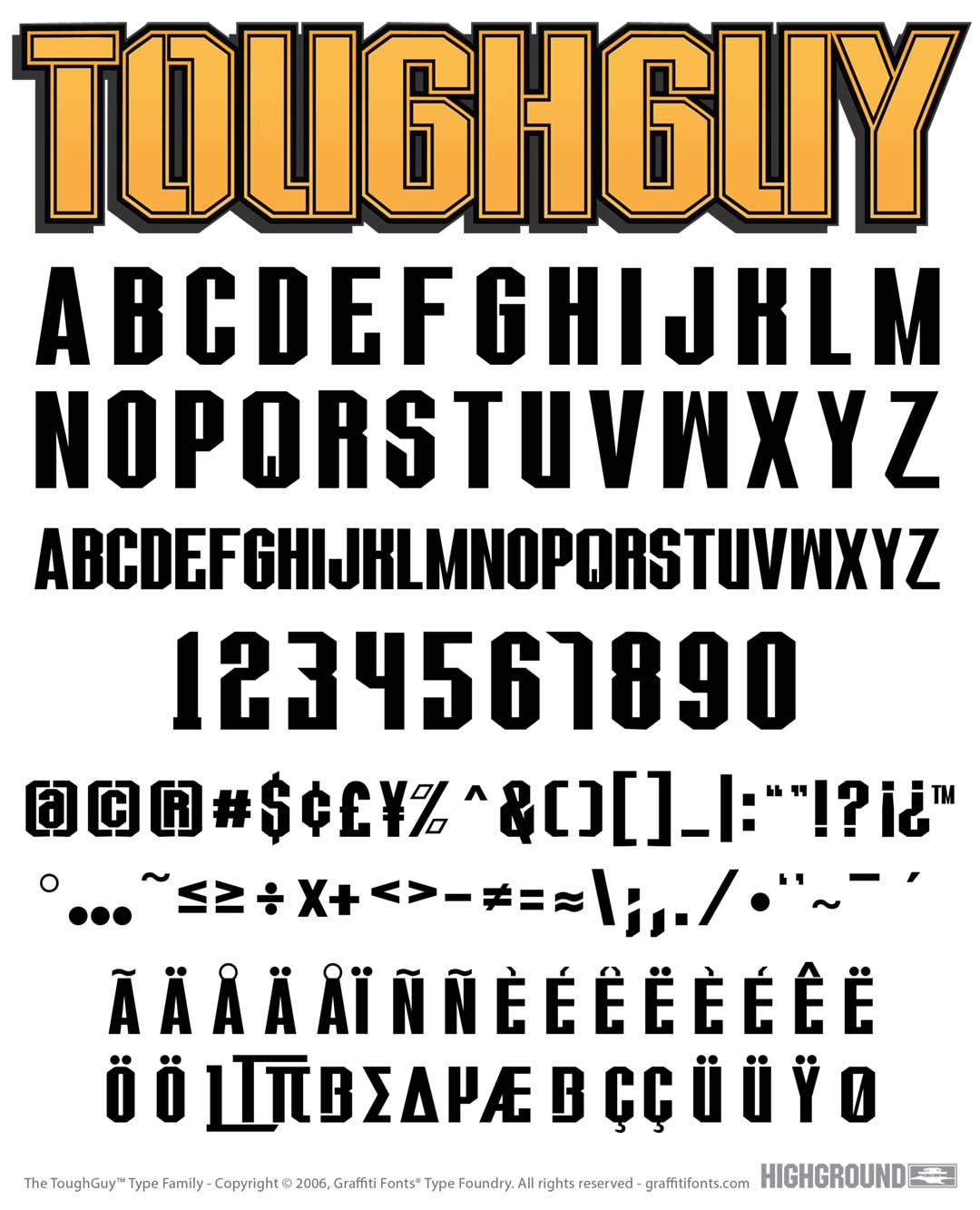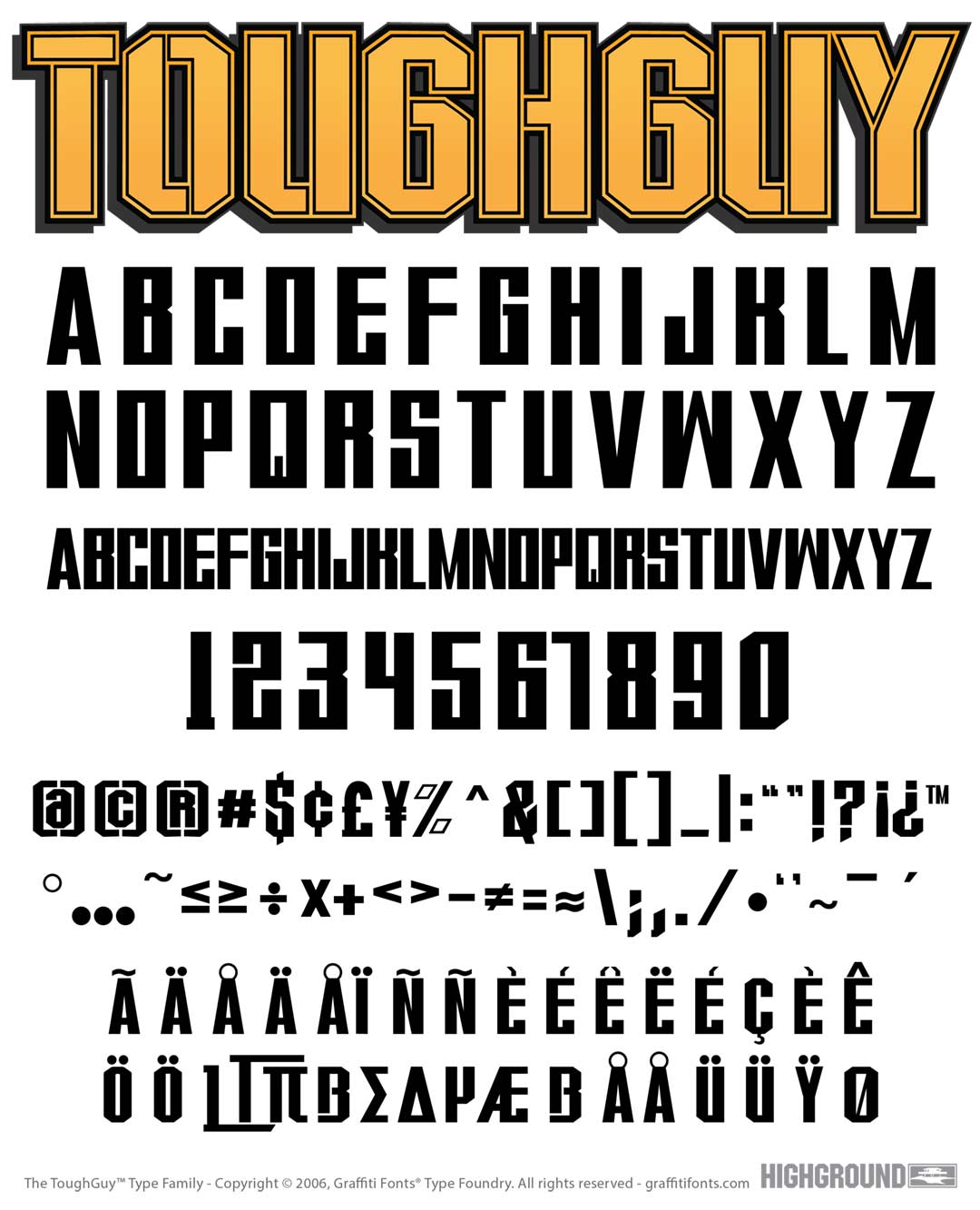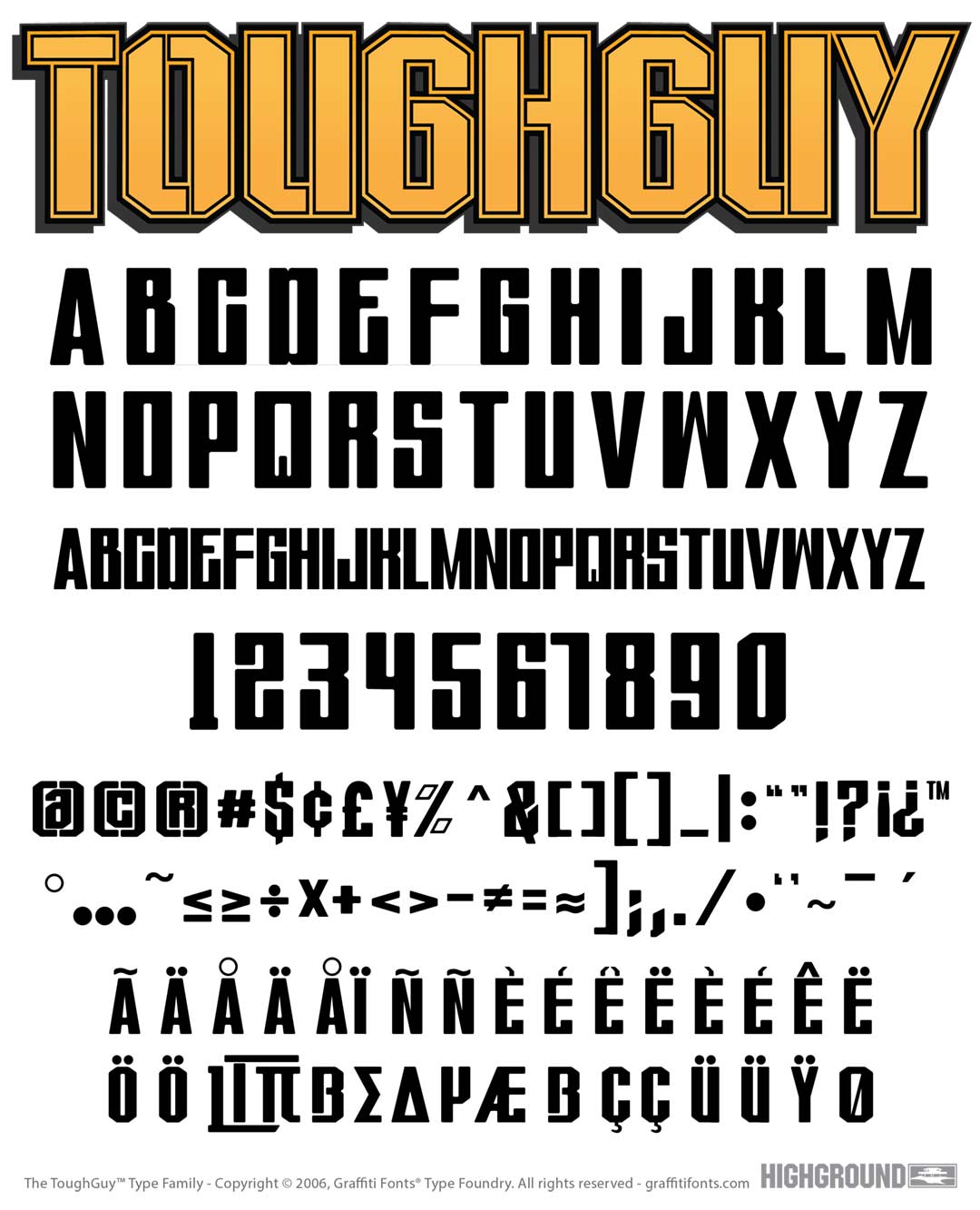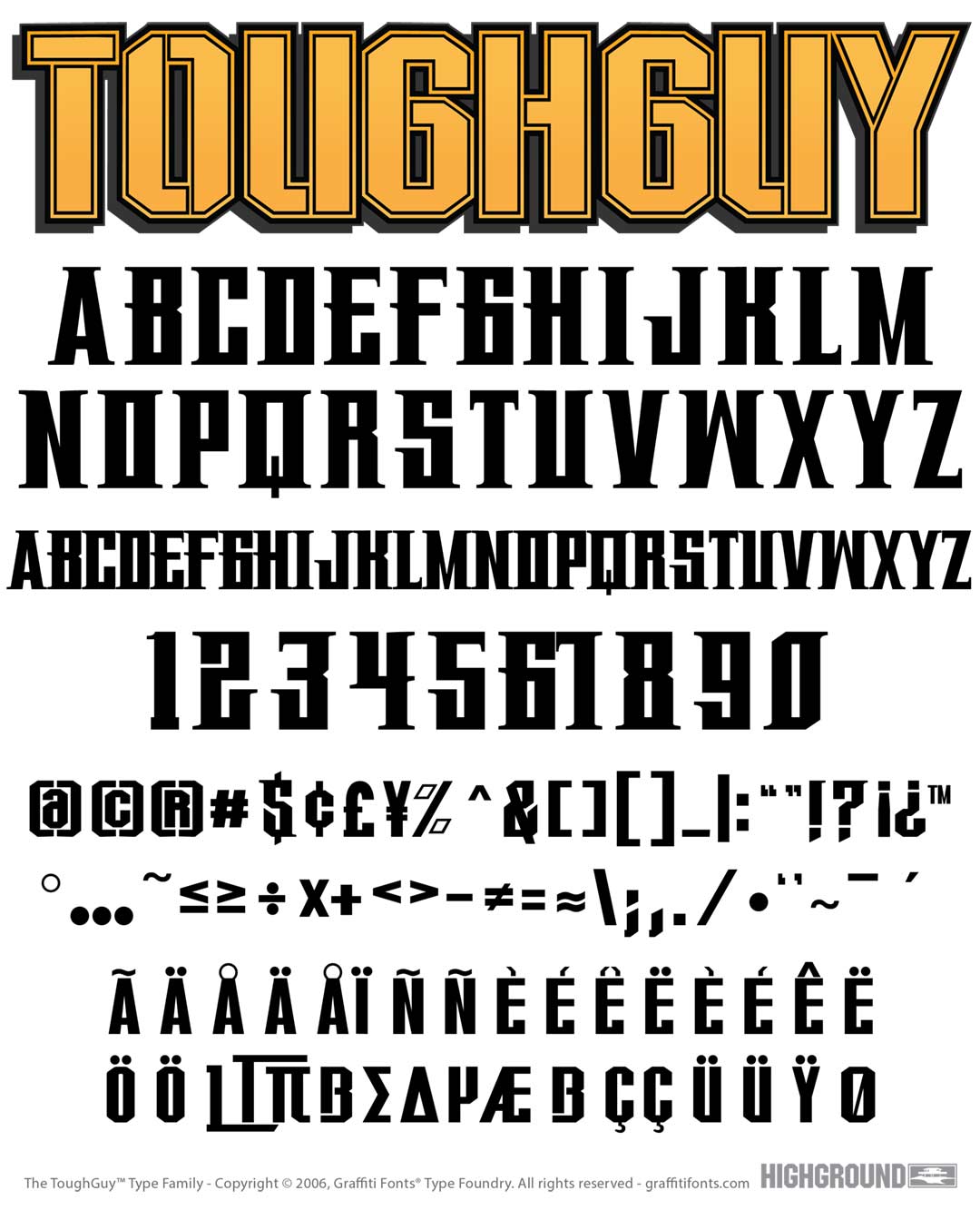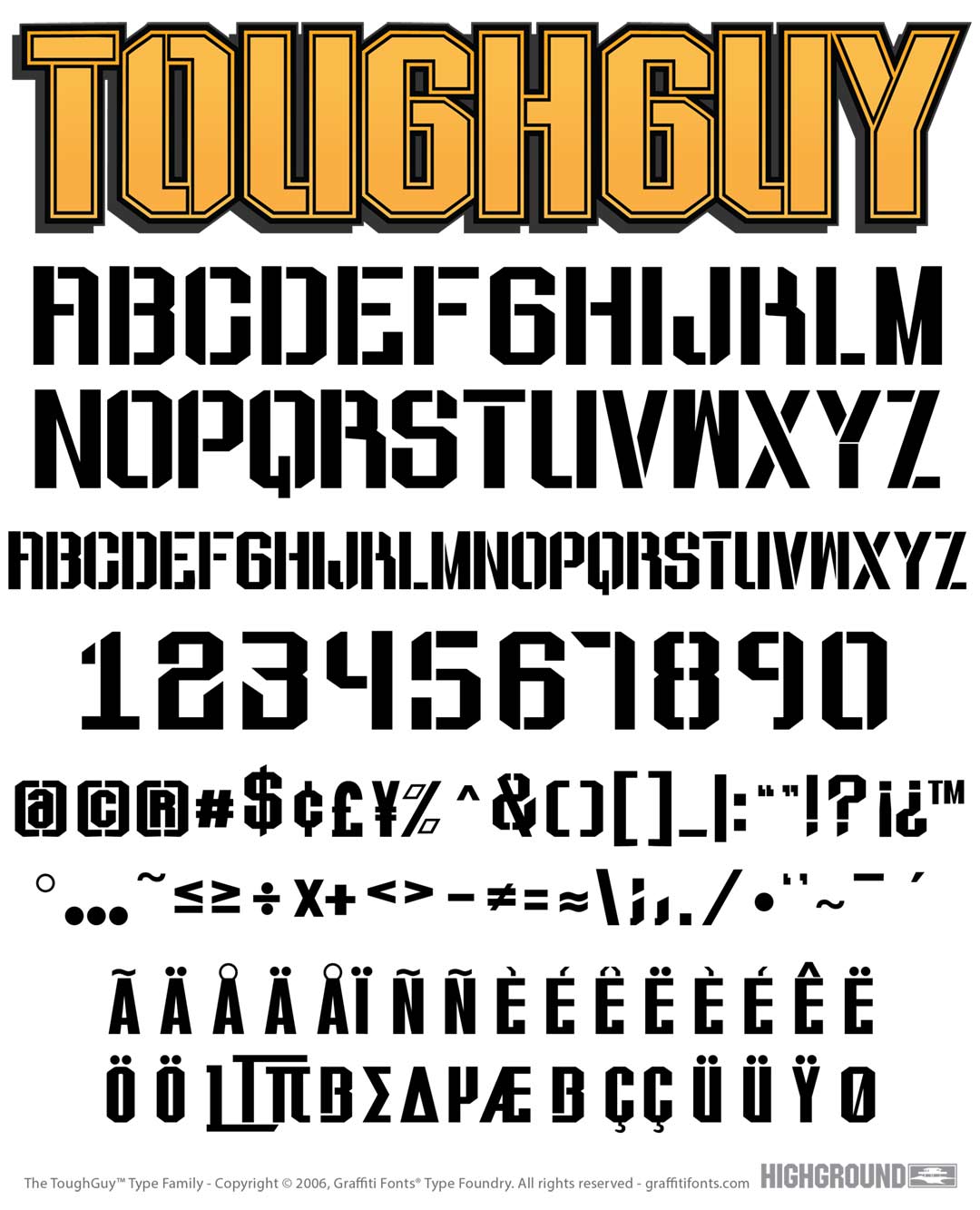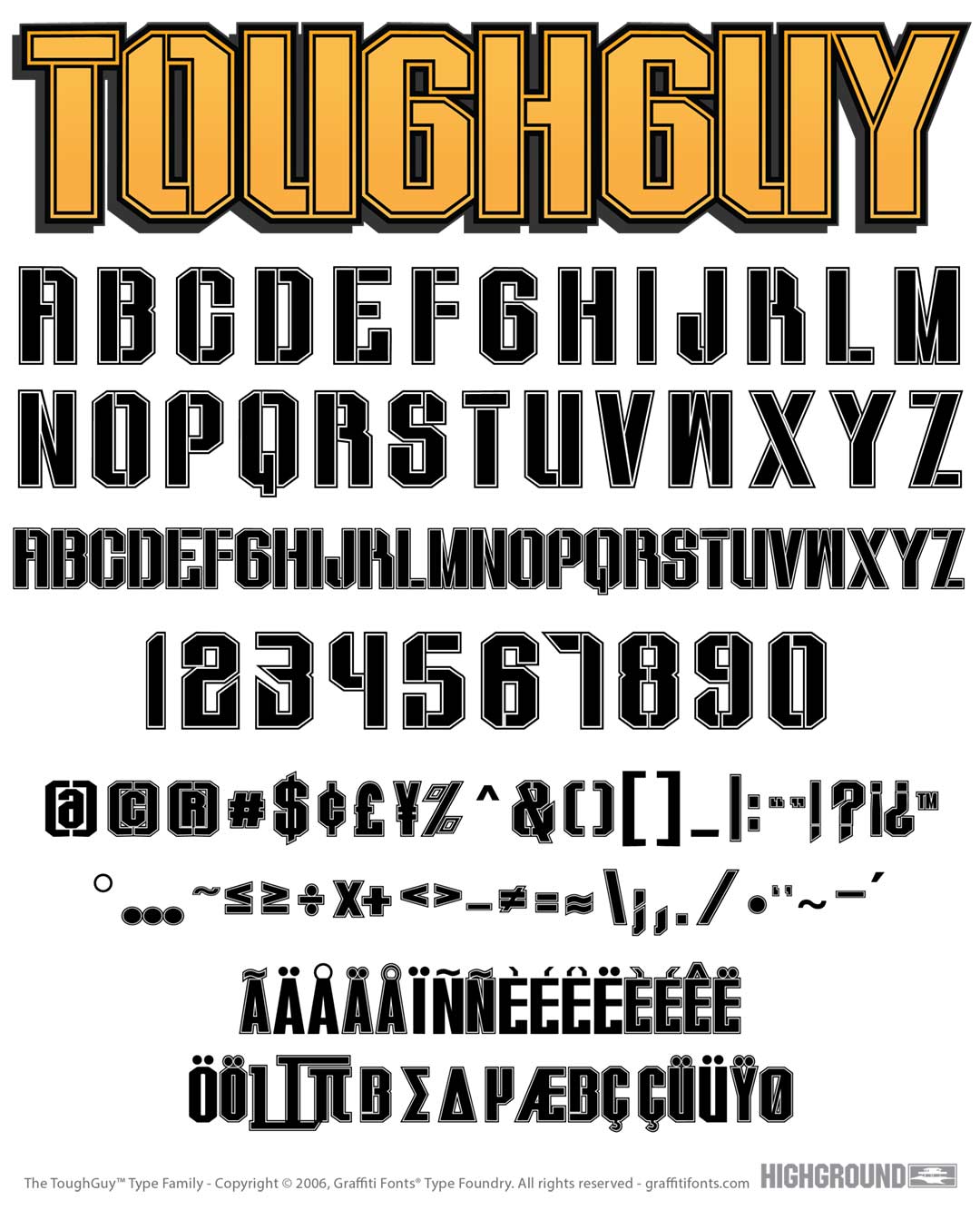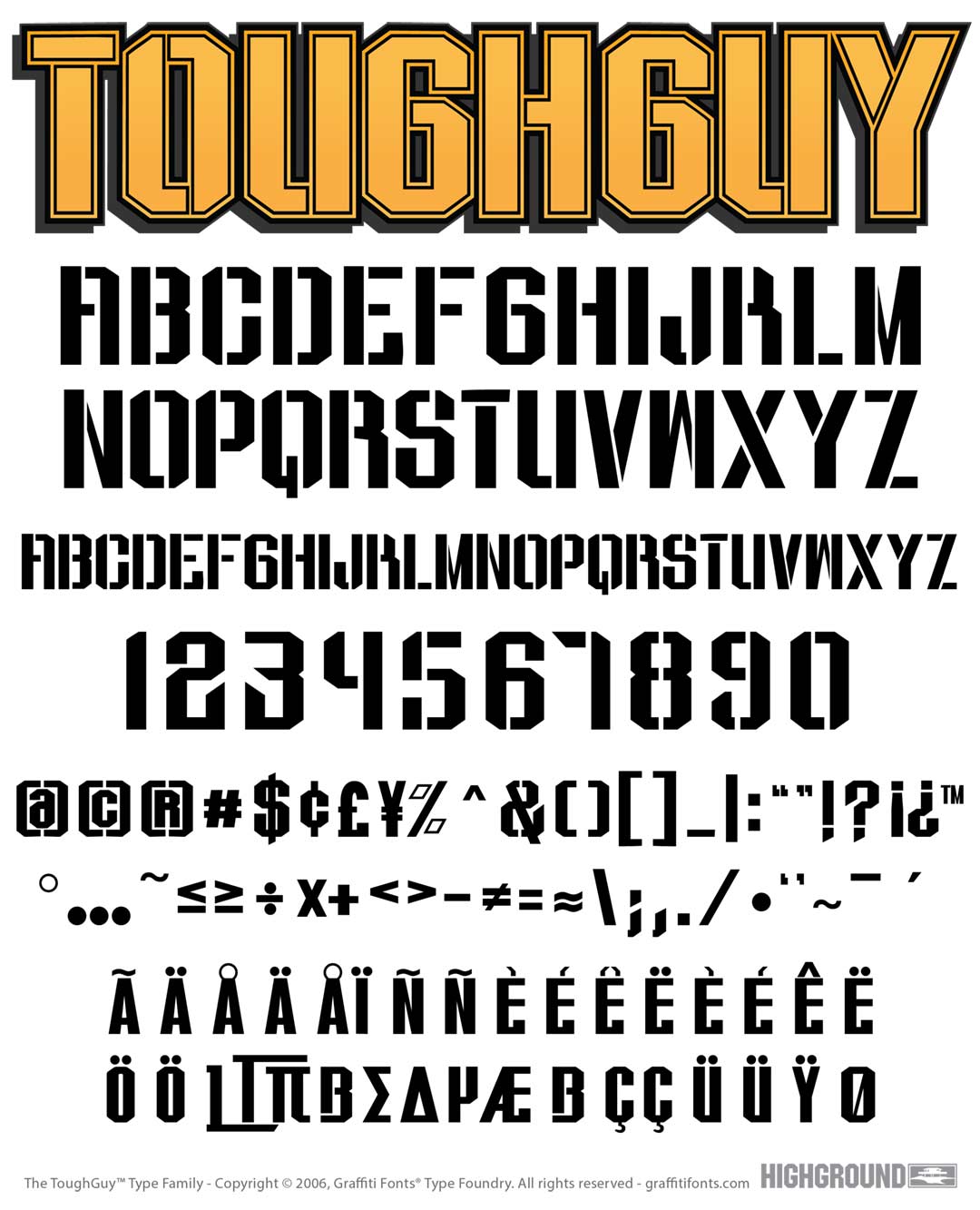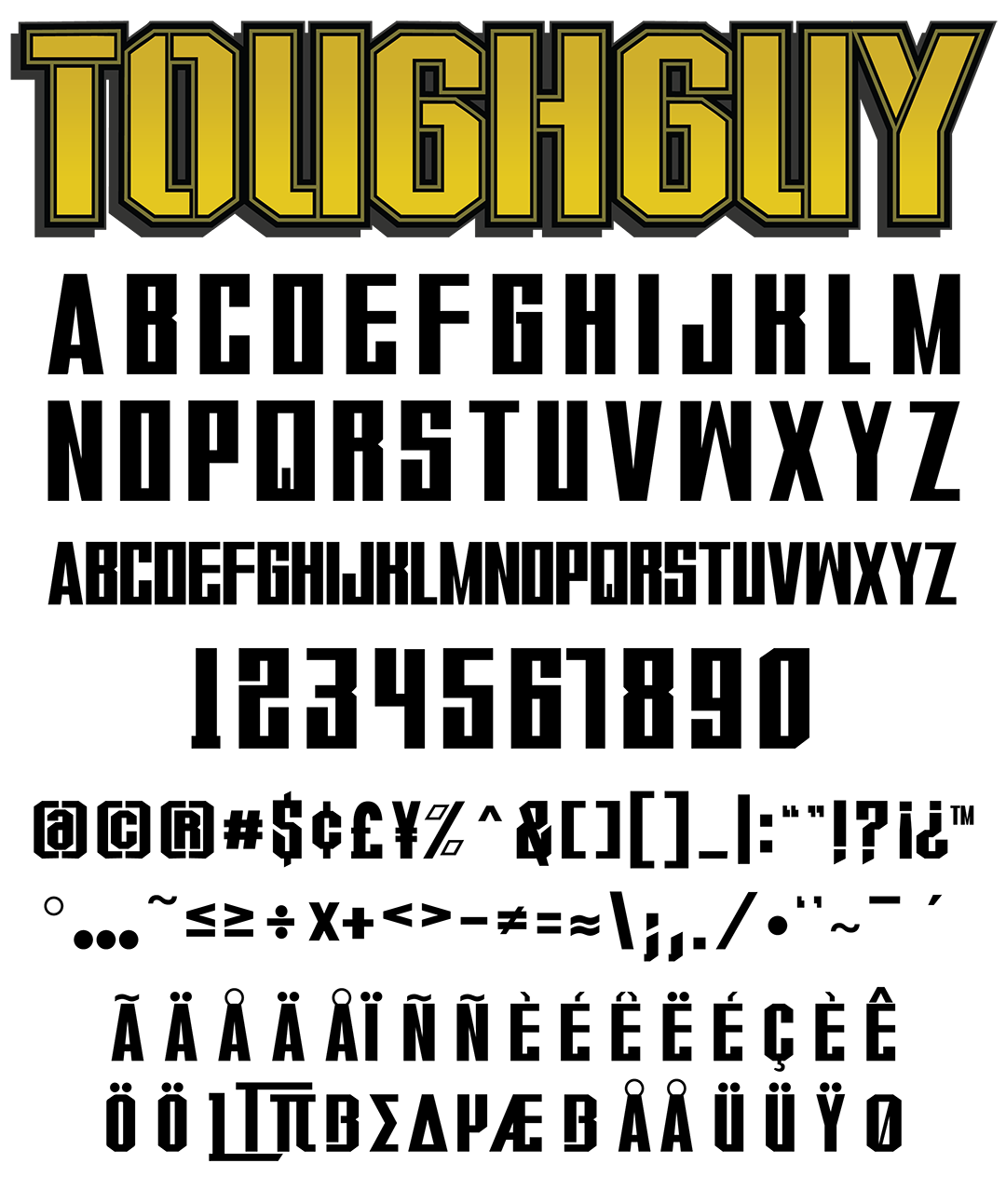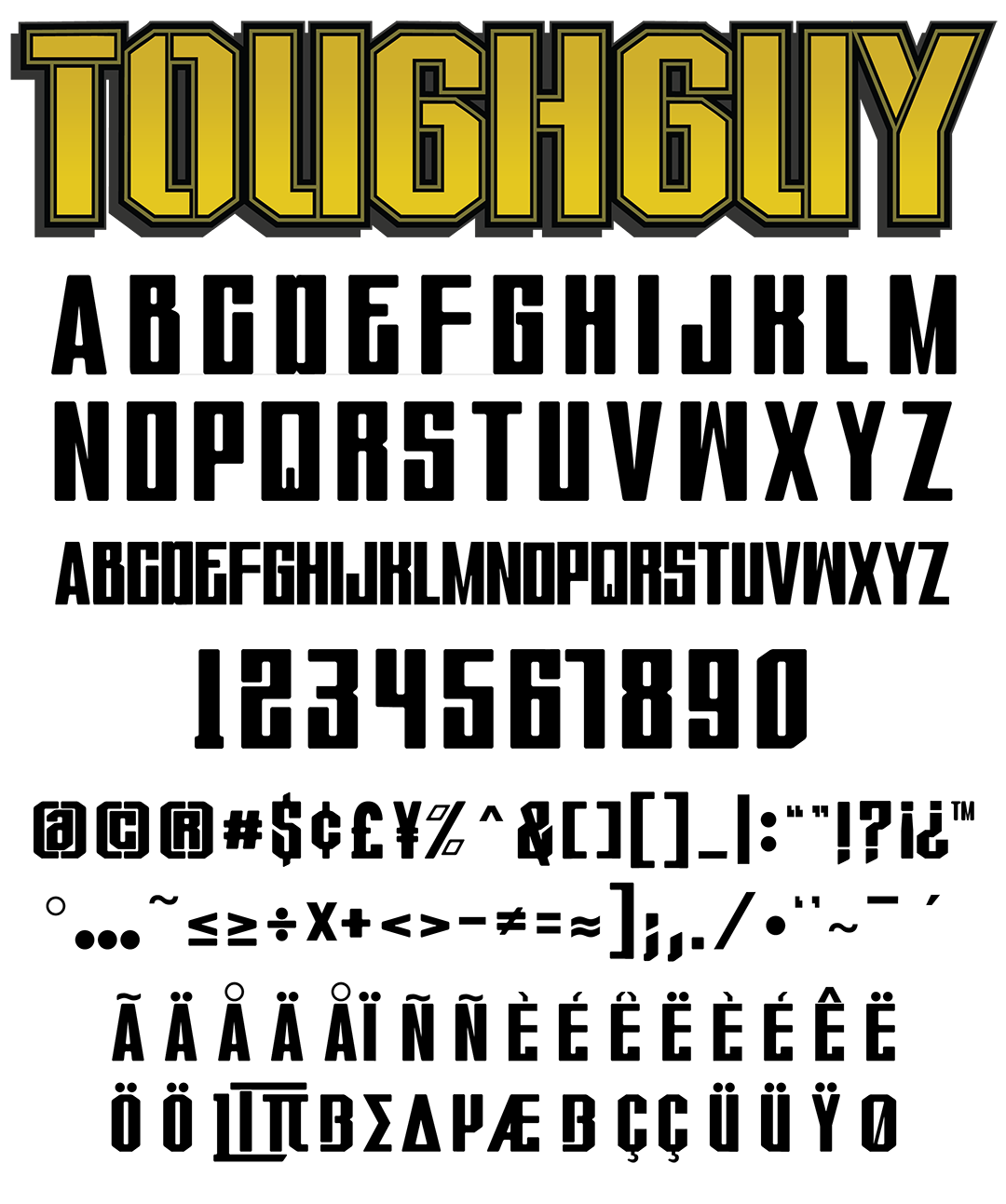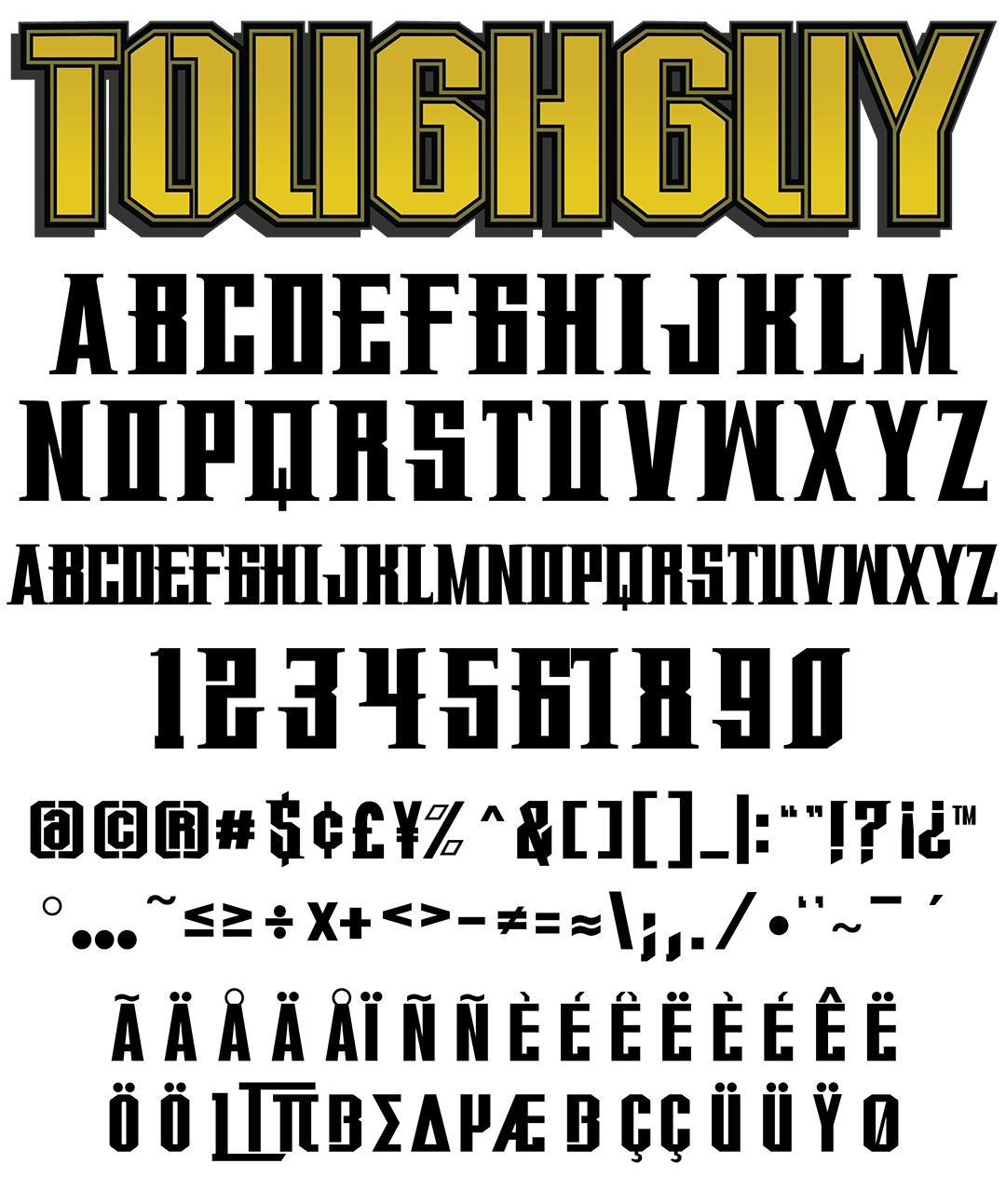
Tough Guy Font
Tough Guy Graffiti Alphabet
Tough Guy Graffiti Font Family
A bold & condensed mechanical typeface presented in 7 unique styles. This high impact font was built for a strong & tough appearance with a street feel. Stencil & serif styles are also included. Styles include: standard 165 characters, flat 157 characters, stencil condensed 140 characters, round 142 characters, serif 163 characters, stencil 160 characters & college 140 characters.